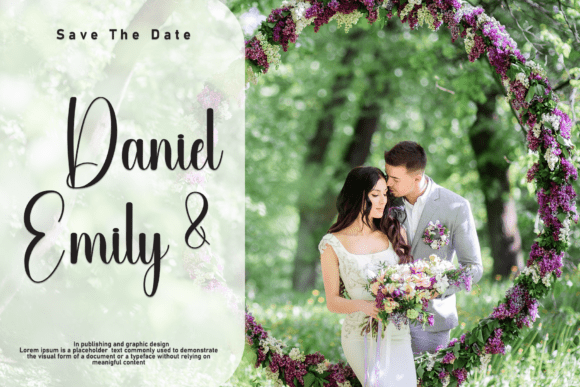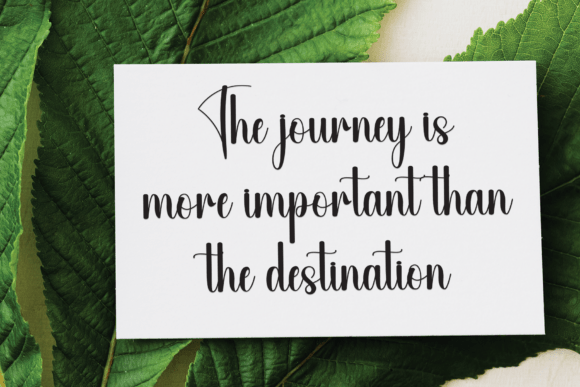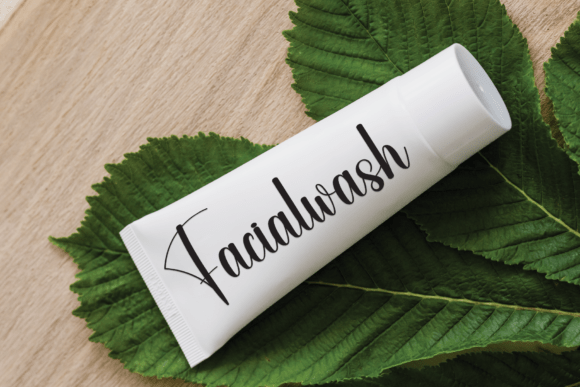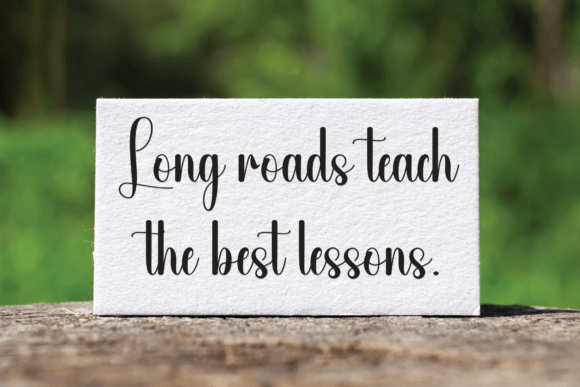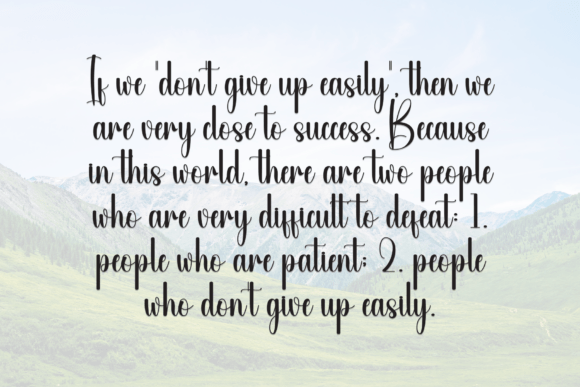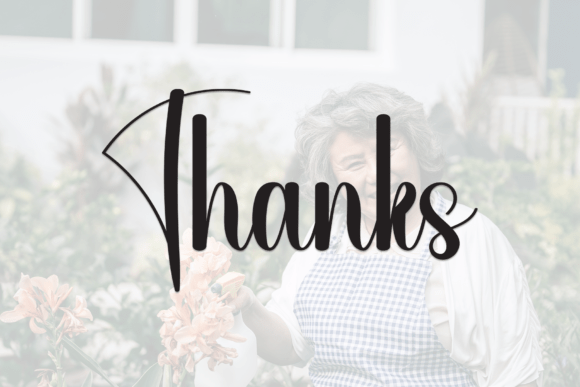
Introduction to Friday Grandma Font
Have you ever stumbled upon the perfect font while working on a creative project, only to realize it’s the missing piece that brings your design to life? For many designers, that moment is a thrilling experience, and it’s exactly what we’re about to share with you. Say hello to the Friday Grandma Font, a charming handwritten script that will add a touch of warmth and personality to your projects.
With its tall, elegant rhythm and gentle stroke contrast, the Friday Grandma Font is an ideal choice for greeting cards, brand marks, packaging, and social quotes. Its playful entry/exit swashes, tidy loops, and rounded terminals create a friendly, approachable voice that’s perfect for conveying your message. Whether you’re working on a free download or a high-quality design resource, this font is sure to elevate your creative project.
Key Features of Friday Grandma Font
- Unique, hand-drawn design: This font features a distinctive, hand-drawn style that adds a personal touch to any project.
- High-quality design: The font is designed to be highly legible and visually appealing, making it perfect for a wide range of creative projects.
- Perfect for creative projects: The Friday Grandma Font is an excellent choice for designers working on creative projects, including invitations, posters, and more.
Honest Review: Friday Grandma Font
One of the standout features of this font is its high quality and unique style. It’s perfect for creative projects that require a touch of nostalgia and warmth. The font’s design is reminiscent of classic handwriting, making it ideal for titles, quotes, and other text elements.
Here are some things that work well with the Friday Grandma Font:
- ✨ Unique and vintage style
- ✨ Perfect for creative projects that require a personal touch
- ✨ High quality and detailed design
- ⚠️ May not be suitable for modern or minimalist designs
Overall, I’m impressed with the Friday Grandma Font and would highly recommend it to designers looking for a unique and creative solution for their next project.
How to Use Friday Grandma Font
The Friday Grandma Font is perfect for:
- Designing invitations and greeting cards
- Creating social media graphics and posts
- Developing branding and marketing materials